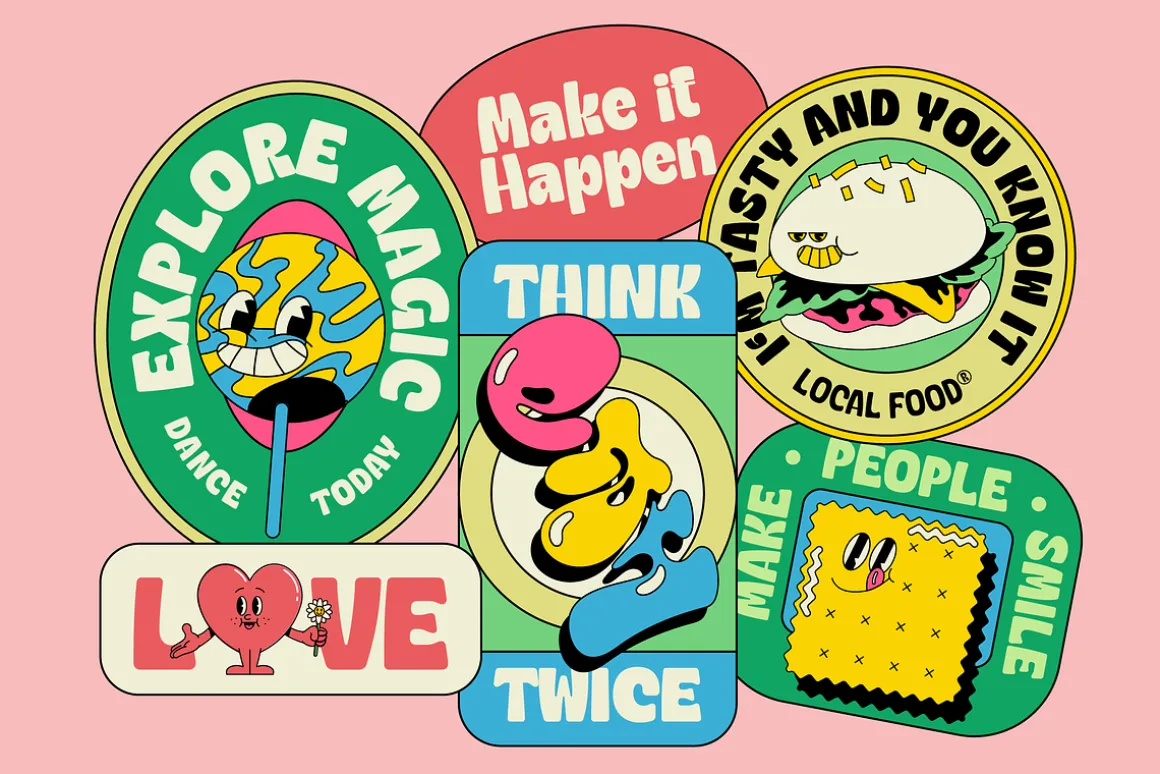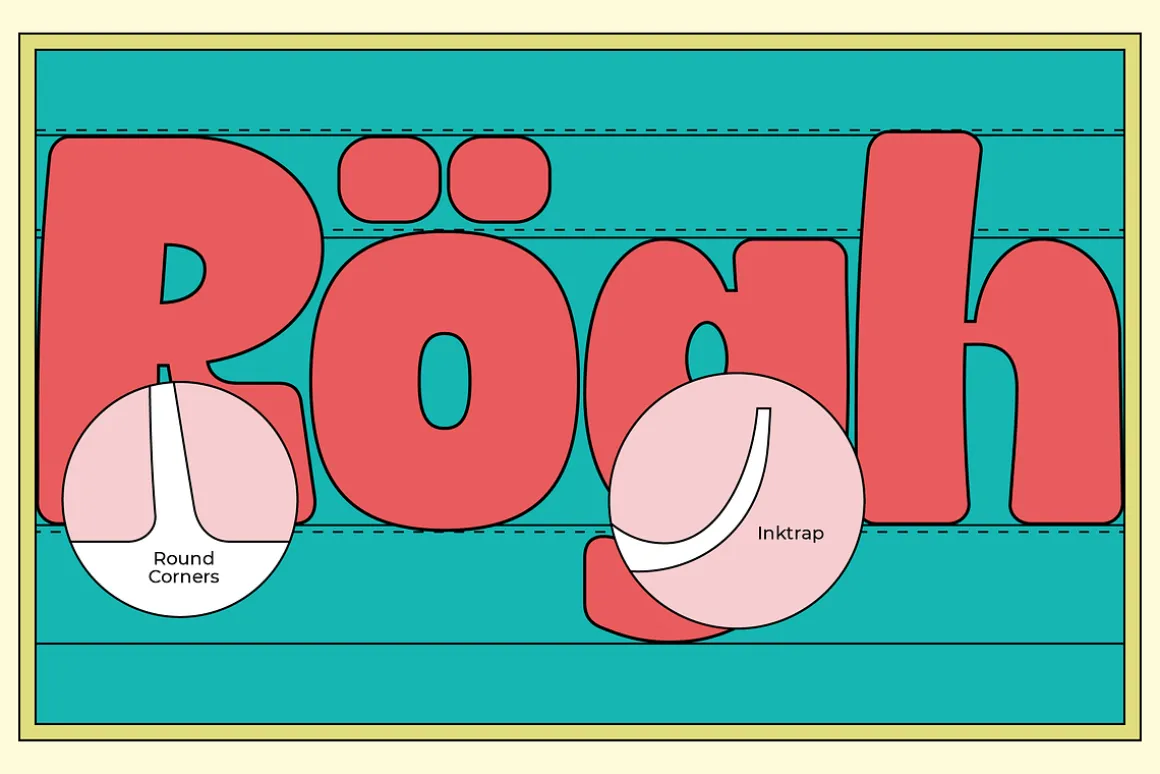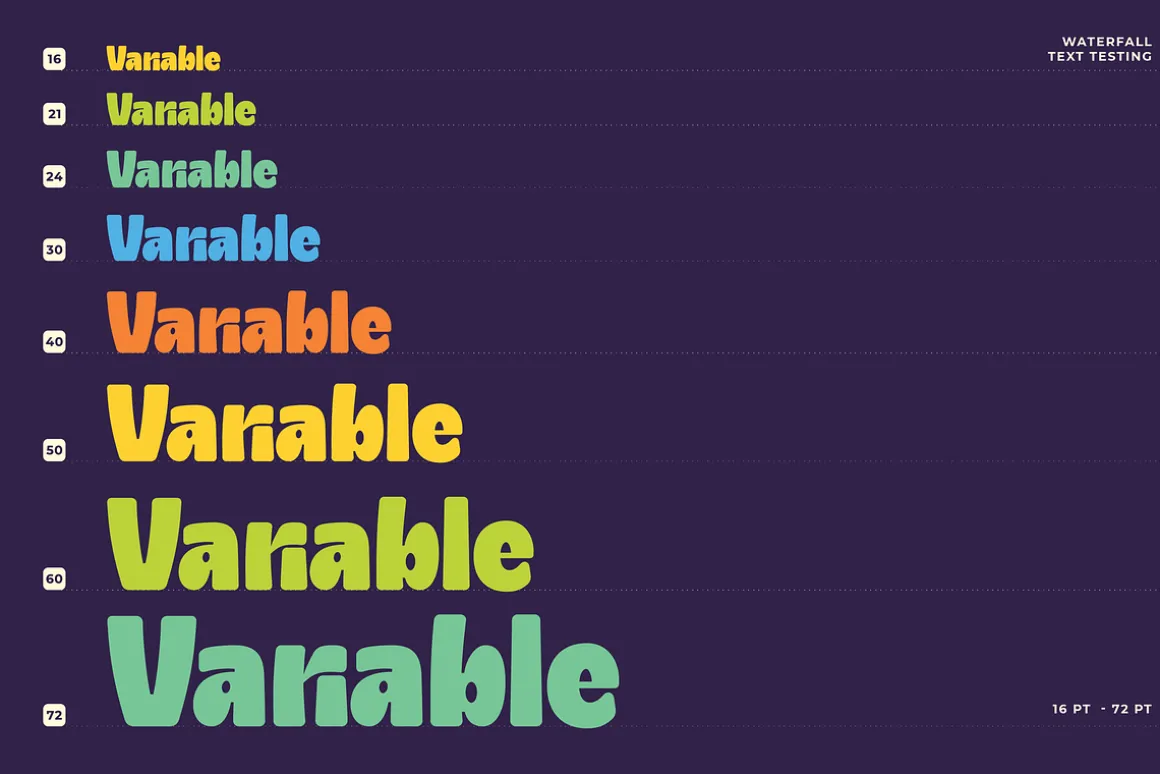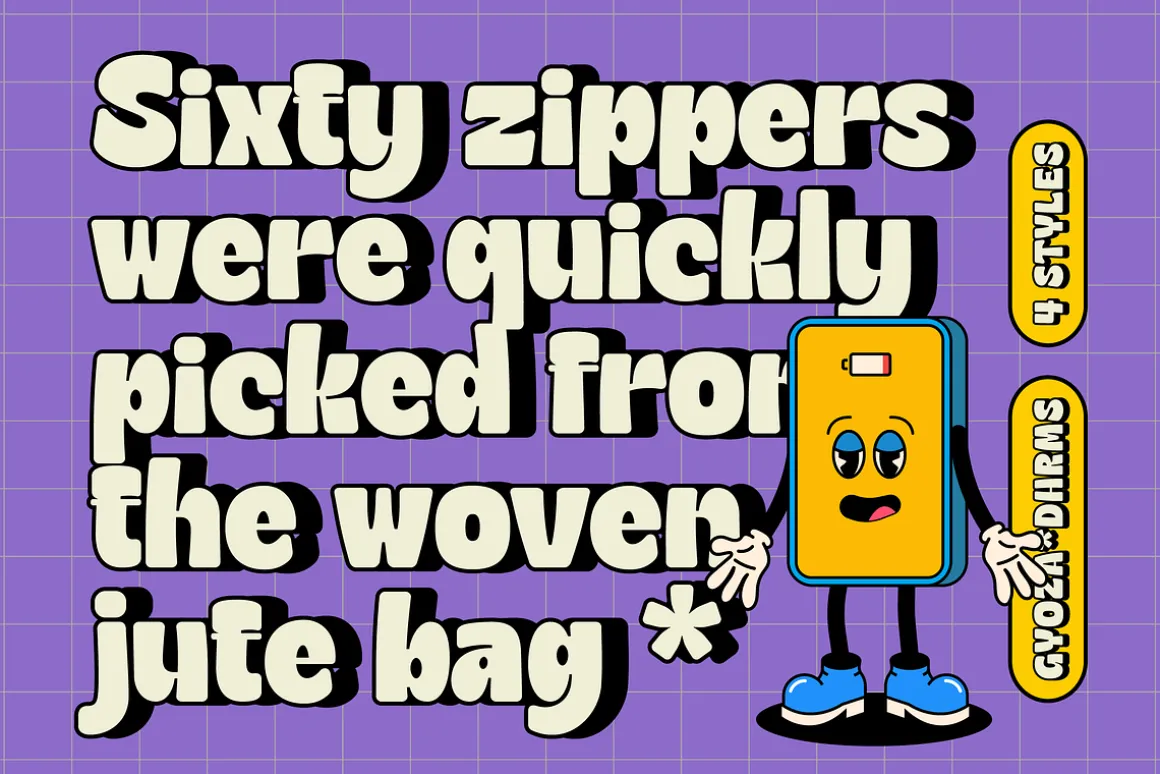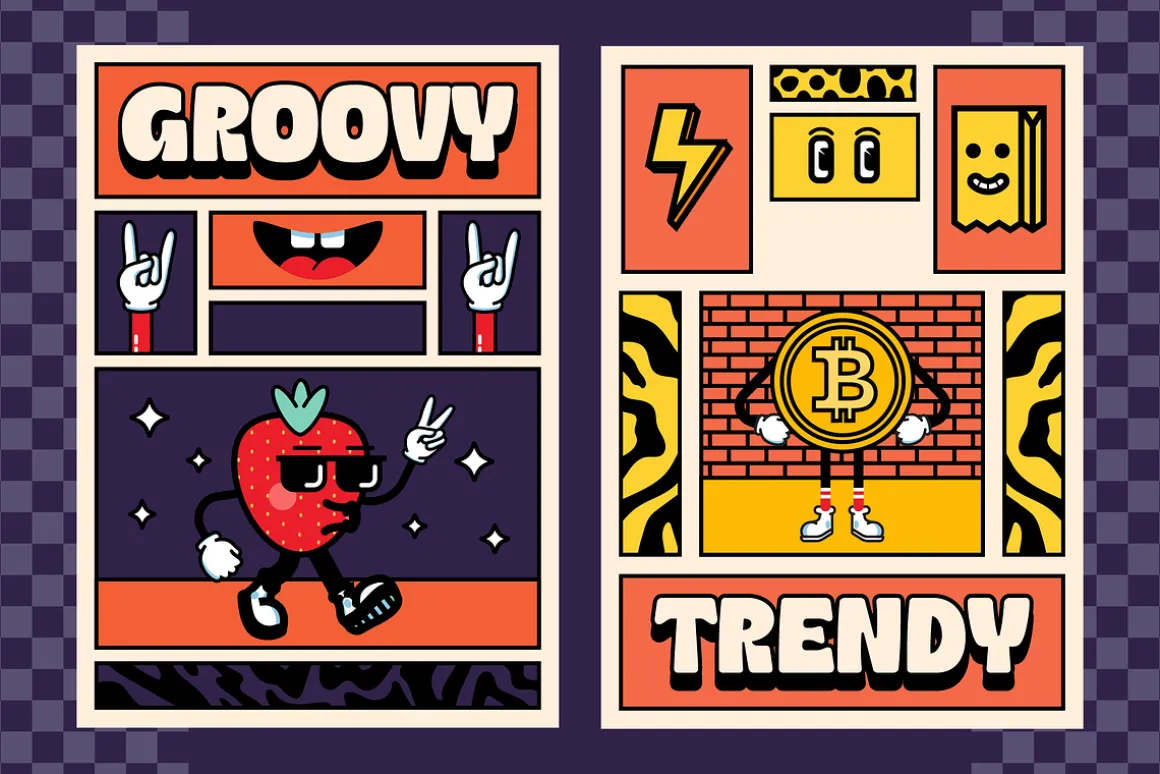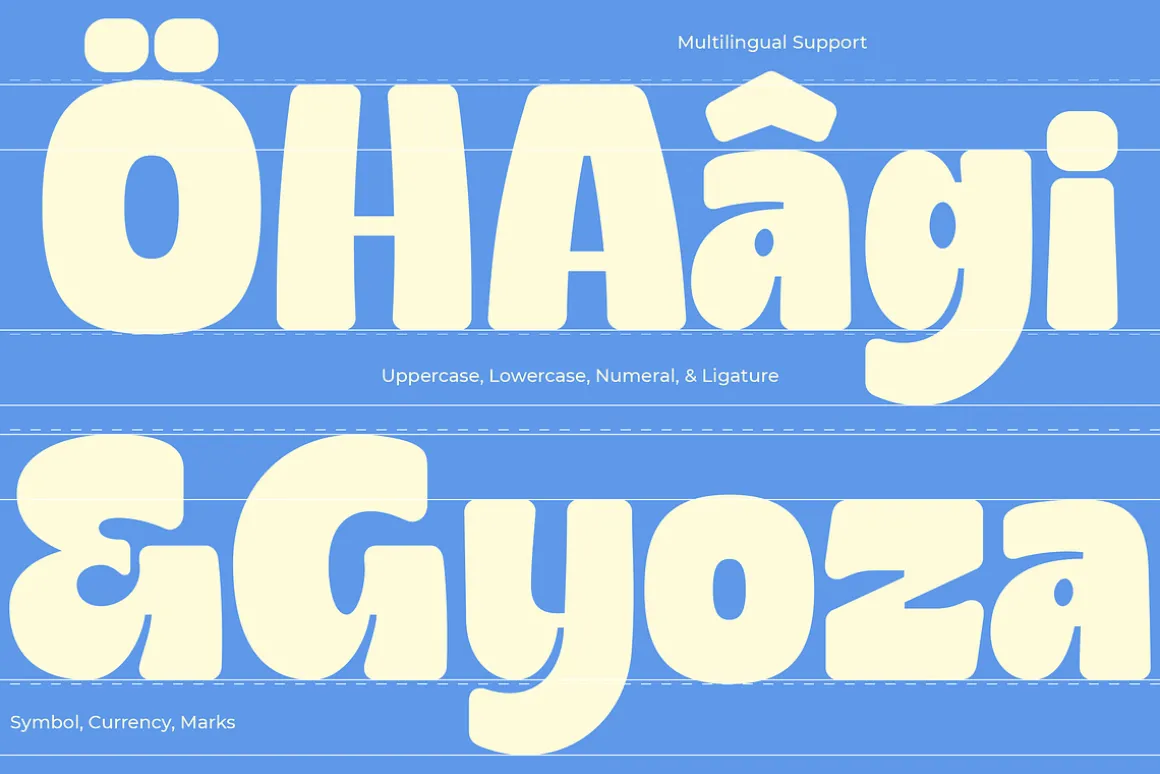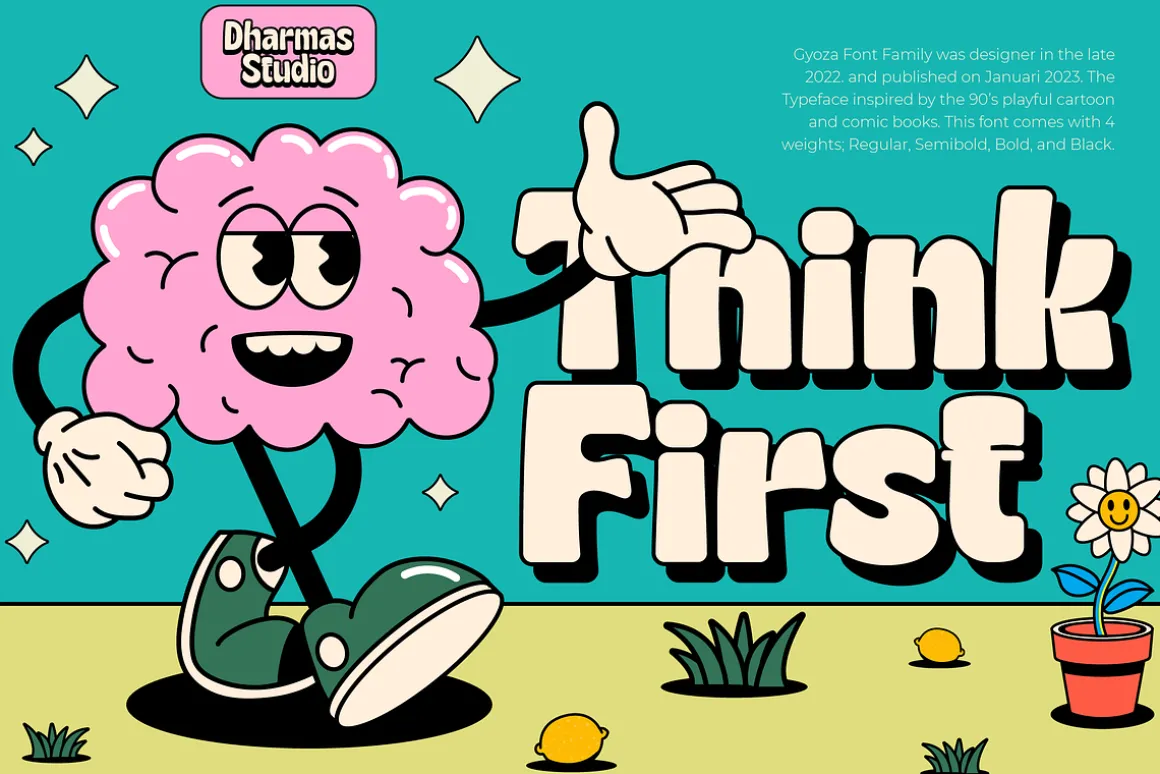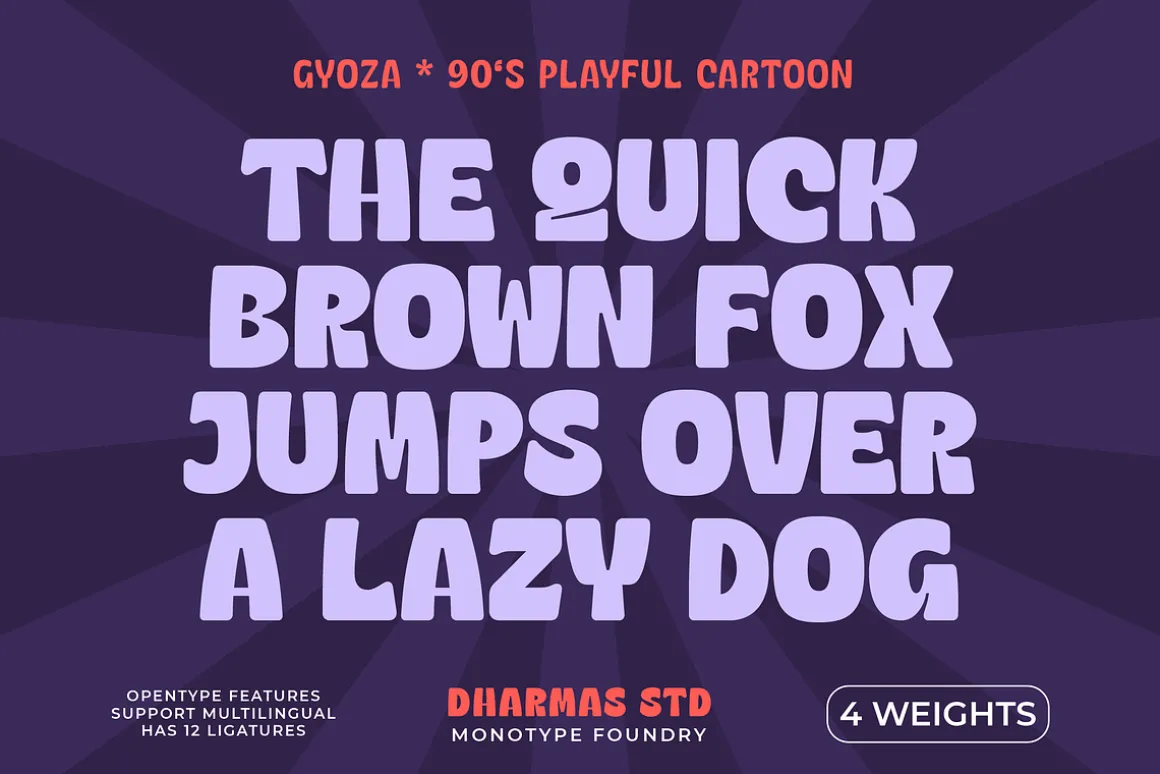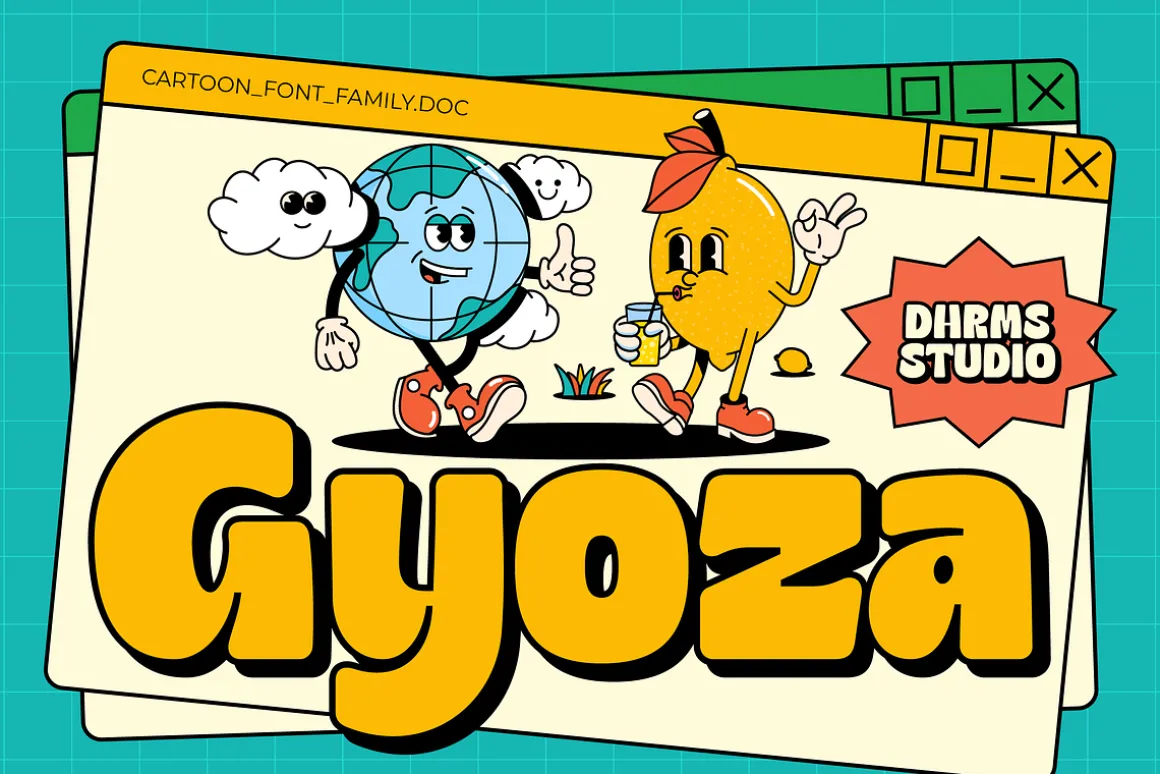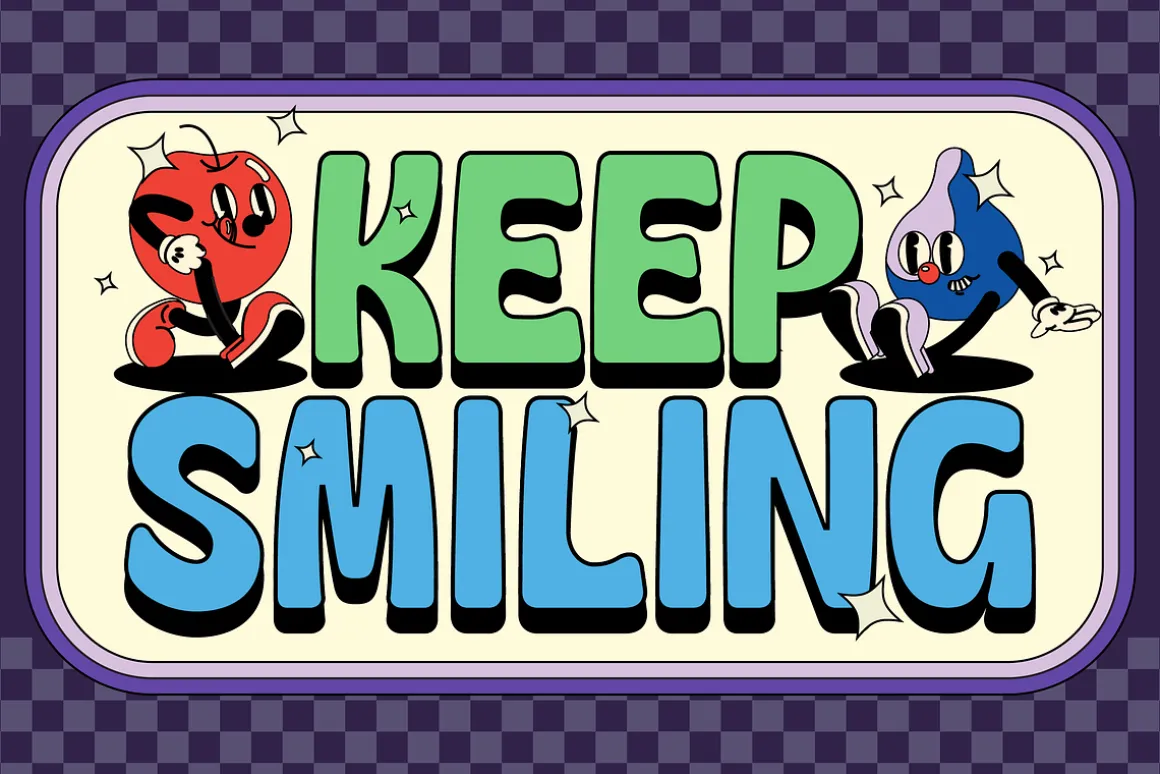
Introducing Gyoza – Font Family (4 Fonts)
Gyoza – was designed in late 2022 and published on January 2023. The Typeface was inspired by the 90’s playful cartoons and comic books. This font comes with 4 weights; Regular, Semibold, Bold, and Black.
Gyoza – available with the variable fonts in weights and the Ink Trap. With the regular style, you’ll have the correct anatomy of the fonts. with the Ink Trap style, it added more extreme space on the Ink Trap.
Gyoza – contains everything you need to create stunning typography – from headline fonts to body text fonts – all in one place. Whether you’re starting out or you’ve been designing for years, Gyoza has everything you need. Can be used for modern and vintage designs, and also can be easily paired with some graphic elements (Illustration, Photography) this font is perfect for, Logotype, Branding, Title, and Packaging.
- Gyoza Regular
- Gyoza Semibold
- Gyoza Bold
- Gyoza Black
- Ligatures
- Letters, numbers, symbols, and punctuation
- Multilingual Support